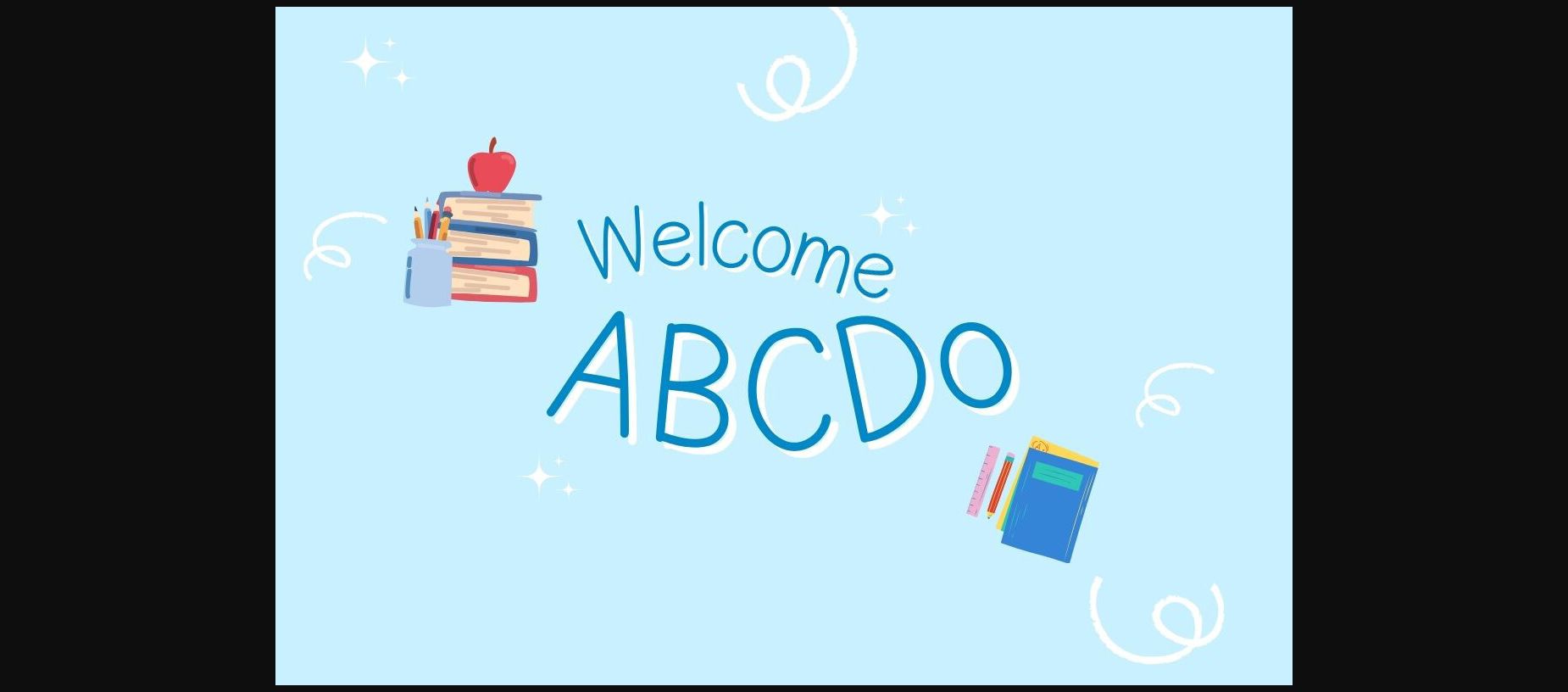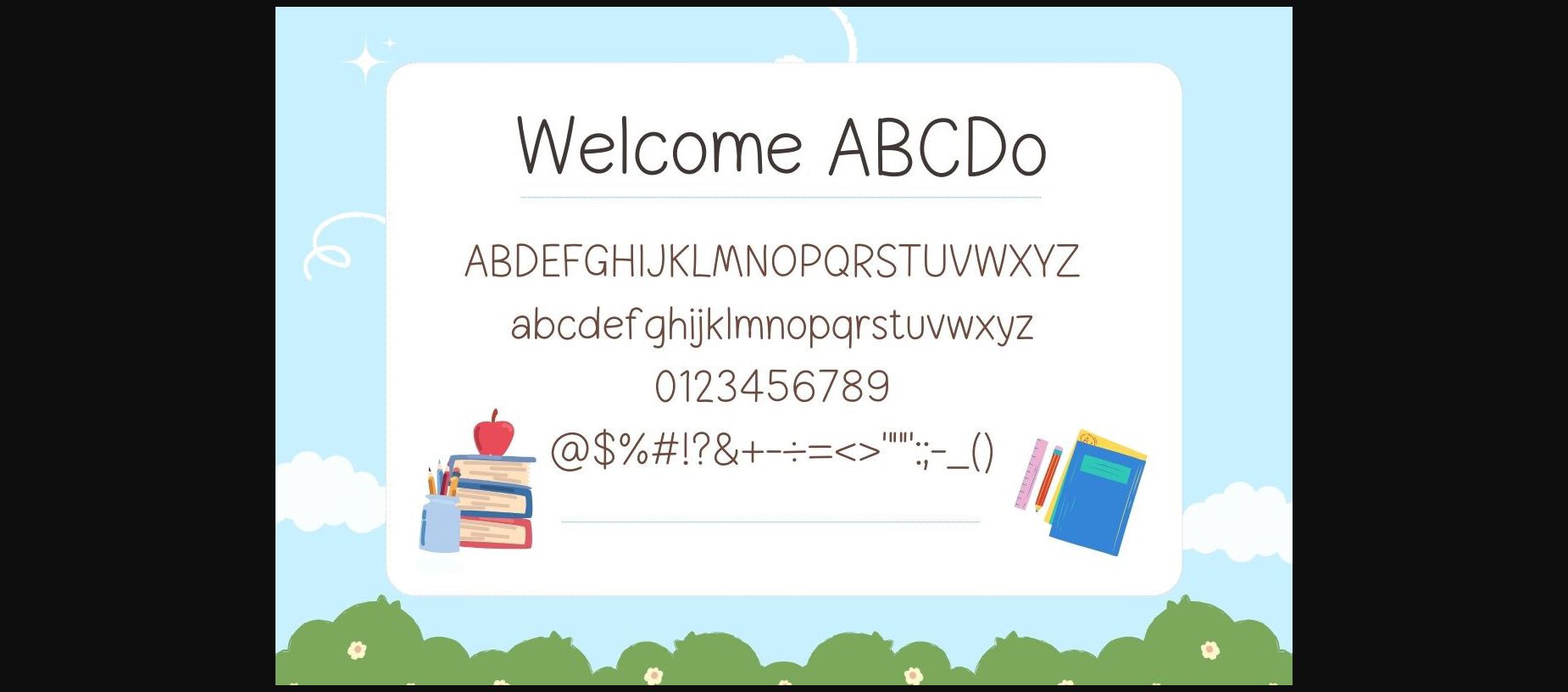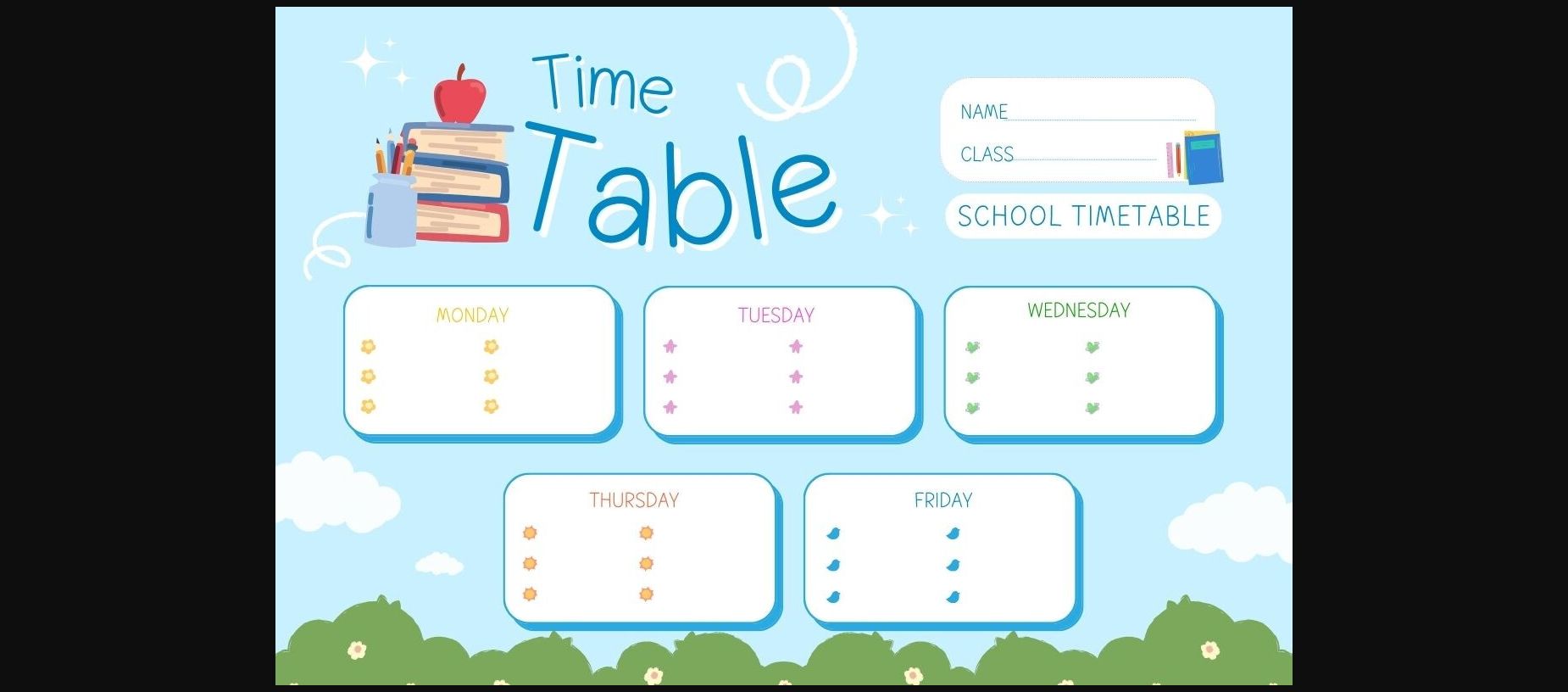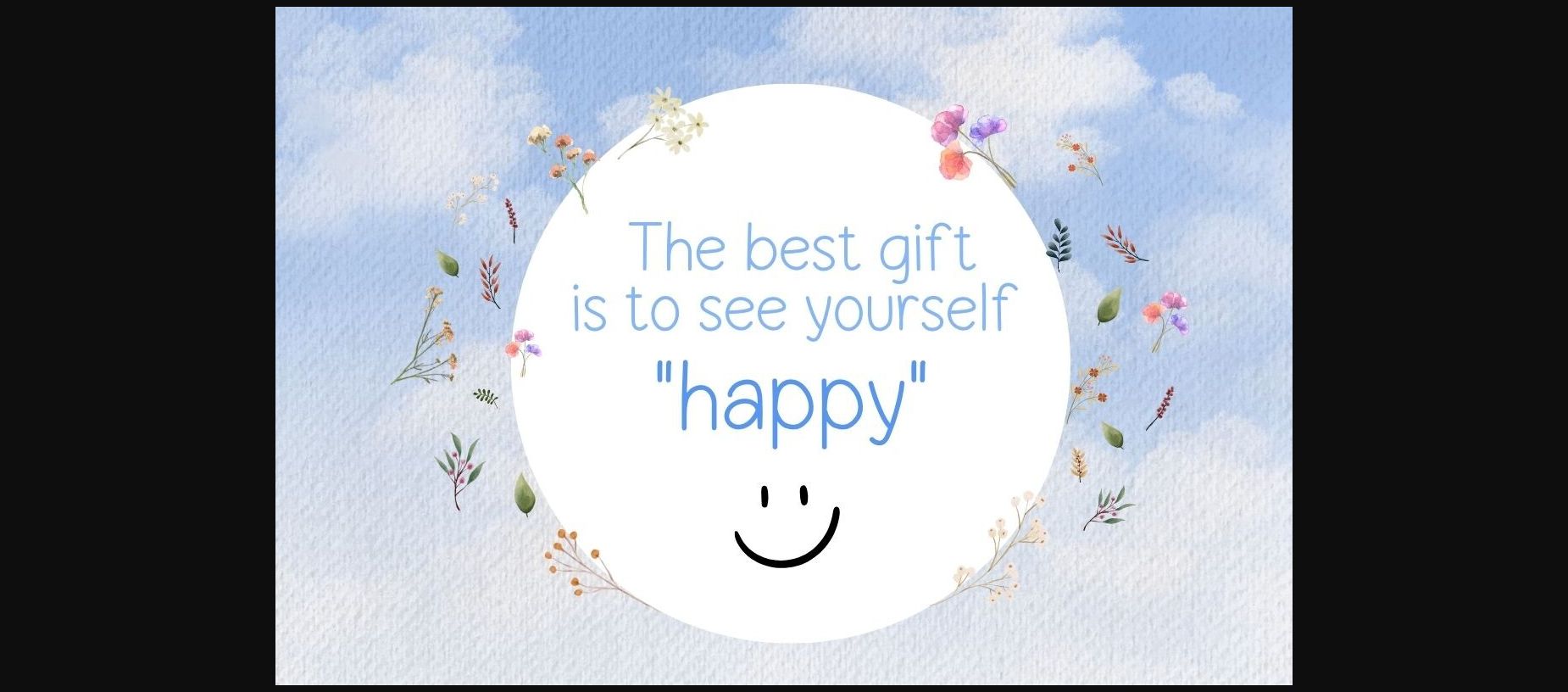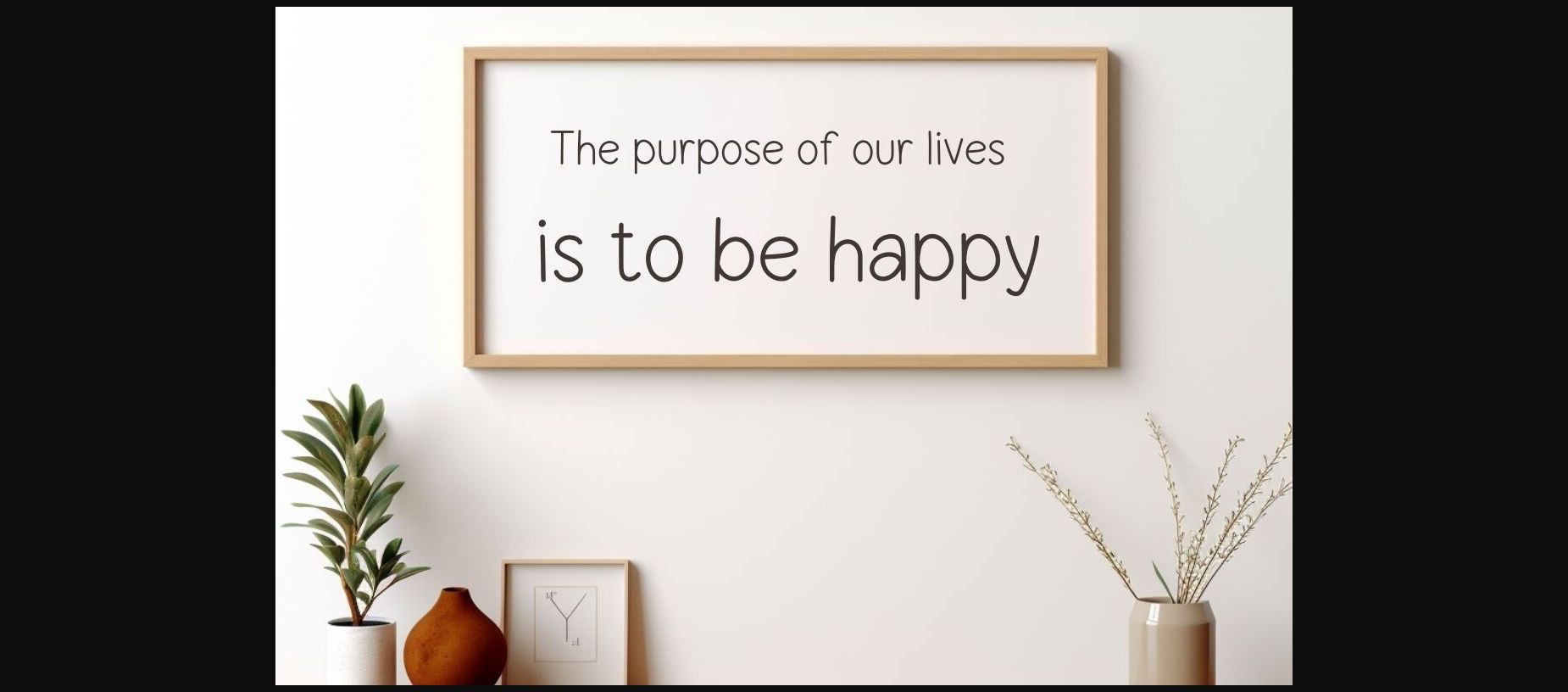
Welcome Abcdo Font
About Welcome Abcdo Font
Welcome ABCDo is a cute, minimal and modern handwritten sans serif font style. Perfect for a wide spectrum of applications. It would be an awesome addition to your fun projects or creative designs.